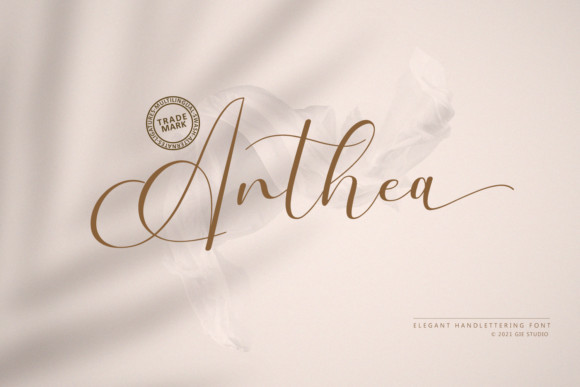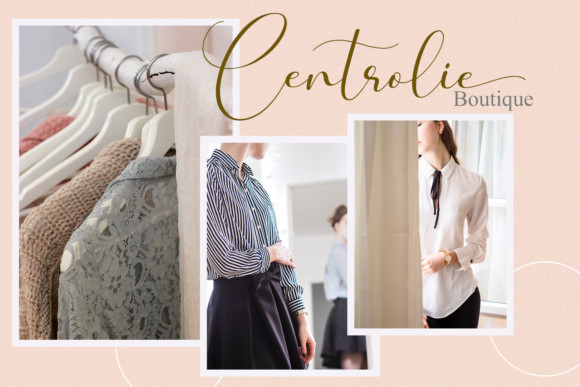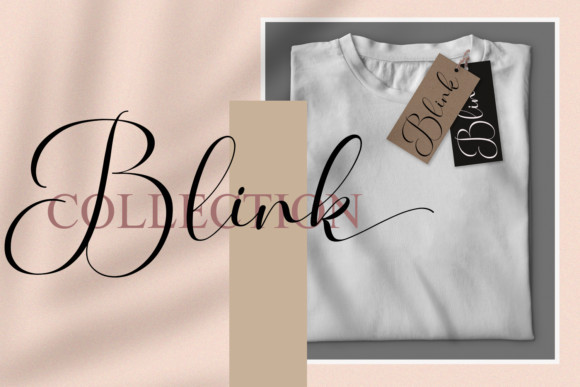
Anthea Font
Anthea is a lovely and light weight handwritten font. Every letter has a unique and beautiful touch, which will make your design come alive! Anthea is PUA encoded which means you can access all of the glyphs and swashes with ease!